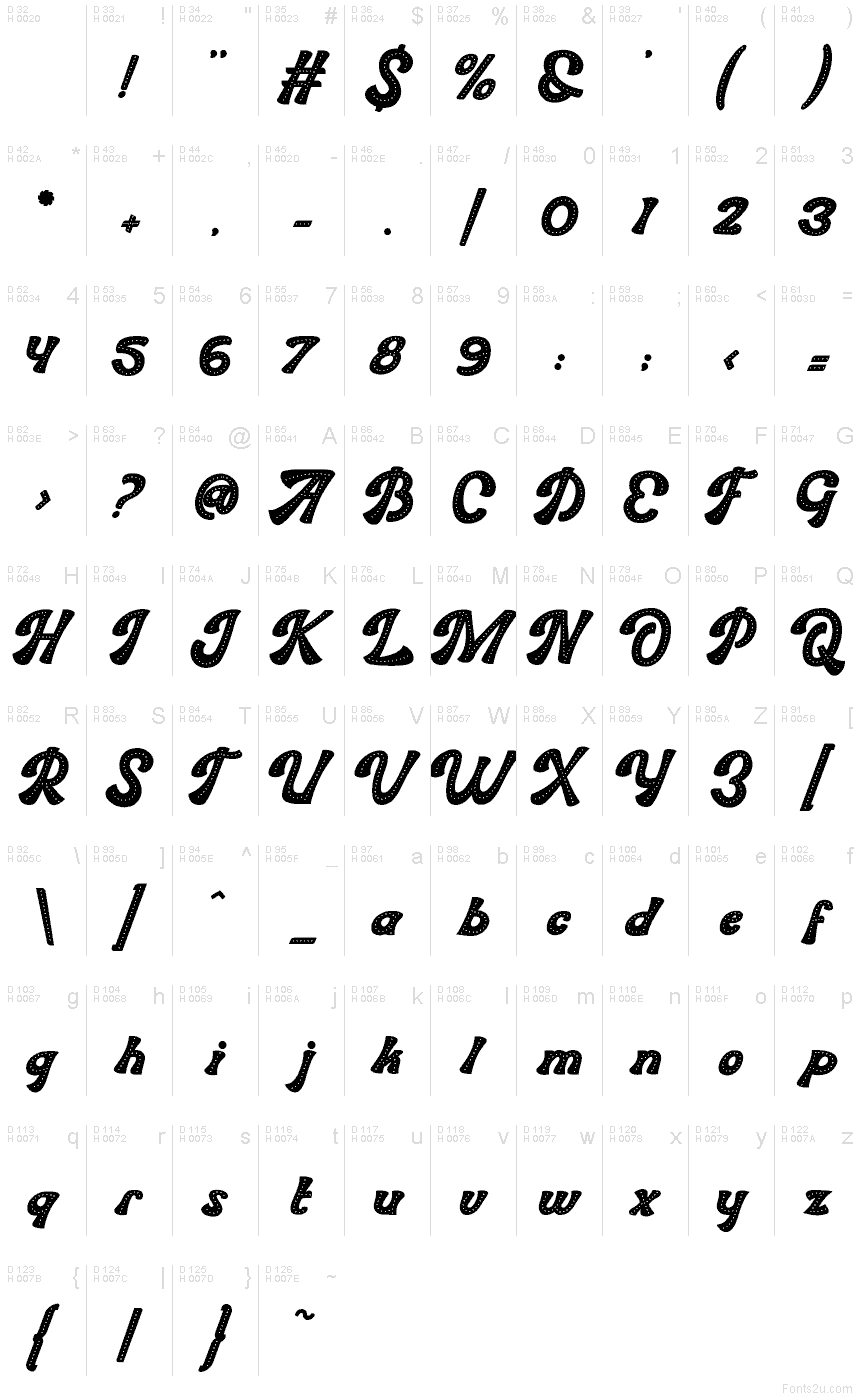
Sweet Joys Dot
Sweet Joys Dot font by PutraCetol Studio is a decorative display font with a swirly appearance created through loops and tactile lines. Beautifully artistic and bold in its serifs, it expresses a casual elegance while combining the old and the new. With both classic retro influences and modern appeal, the typeface works flawlessly for creating unique typography.
Use this dotted textured font for book covers, albums/T-shirt designs, children’s books, advertising print materials, social media posts stories/feeds/events prompts/daily updates/tips, video content/covers/posters/banners/promotions/flyers hand-lettered styled quotes/messages or photo captions or mockups/fillers.